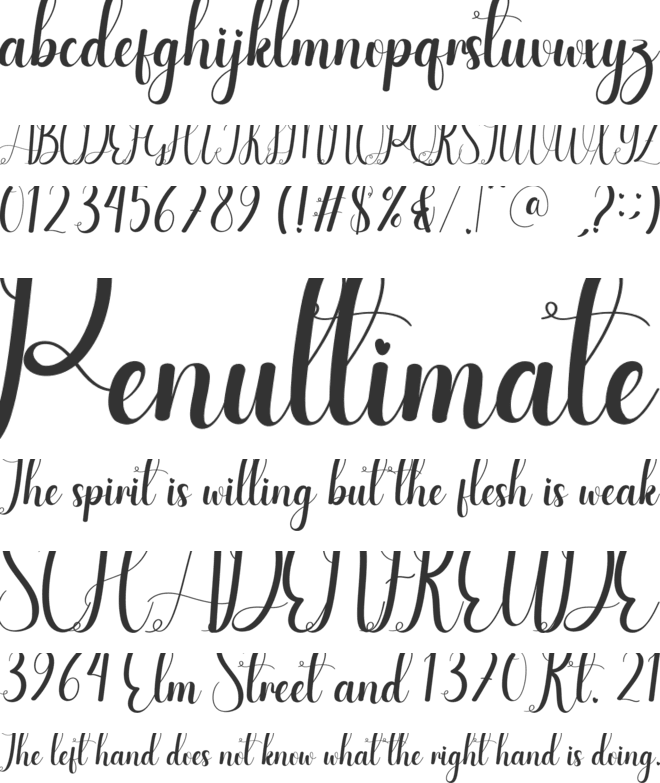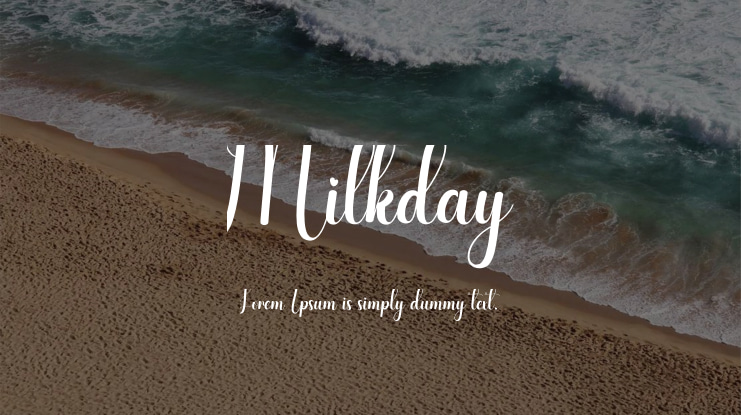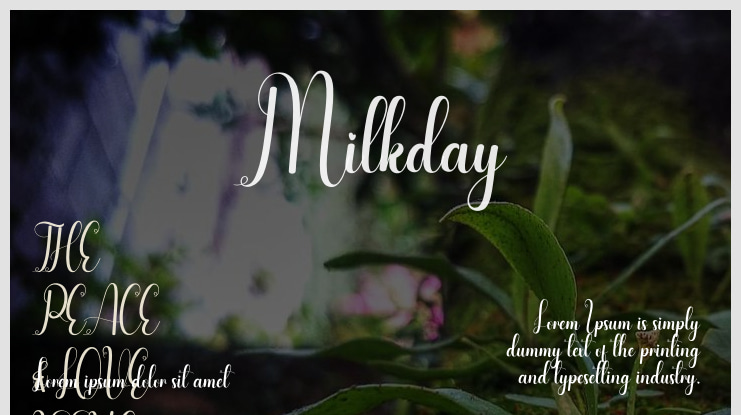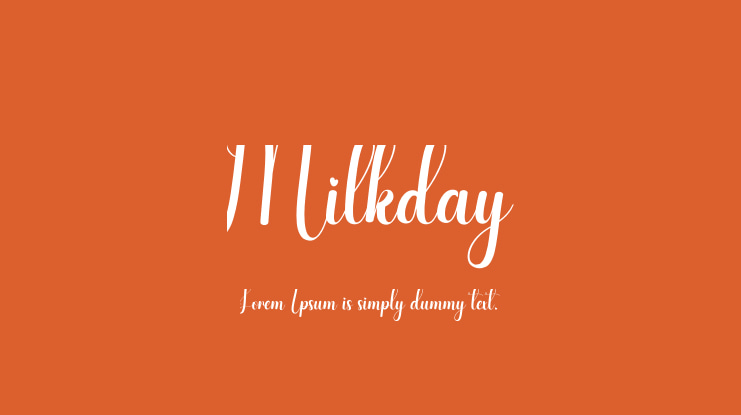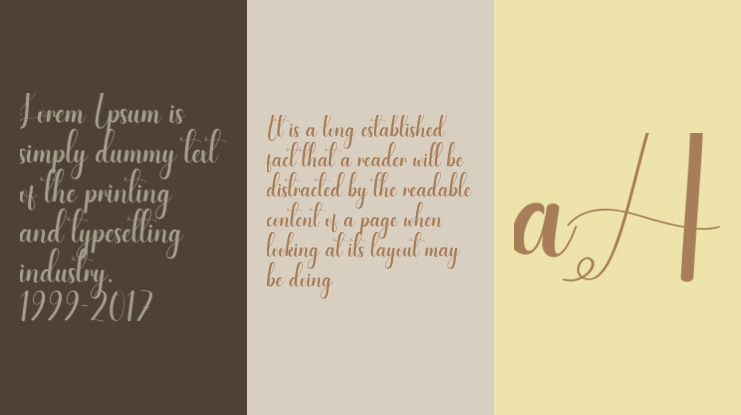
Milkday Font
The latest style letters are perfect for wall displays, wedding invitations, social media posts, logos,
and any project that requires tasteful handwriting.